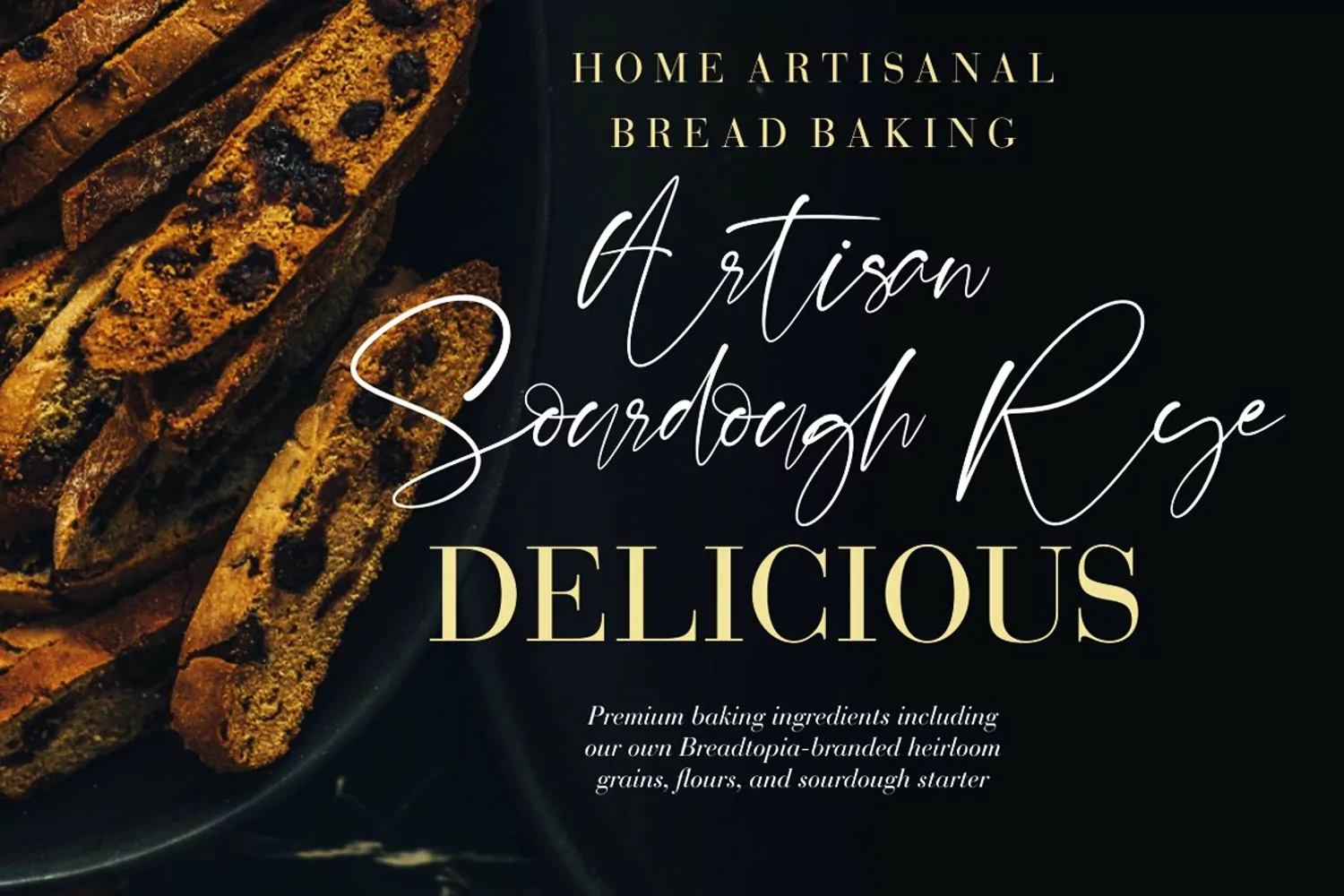
Balistone is a beautiful, clean modern handwritten script font with many ligature. Several swash alternatives are also available in this font. Let's make something beautiful project with this.